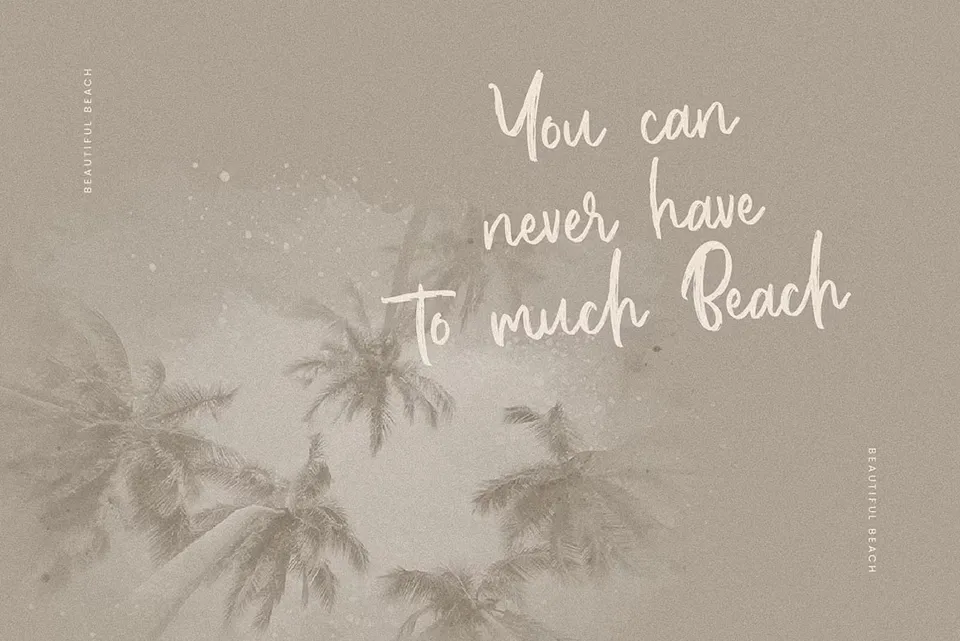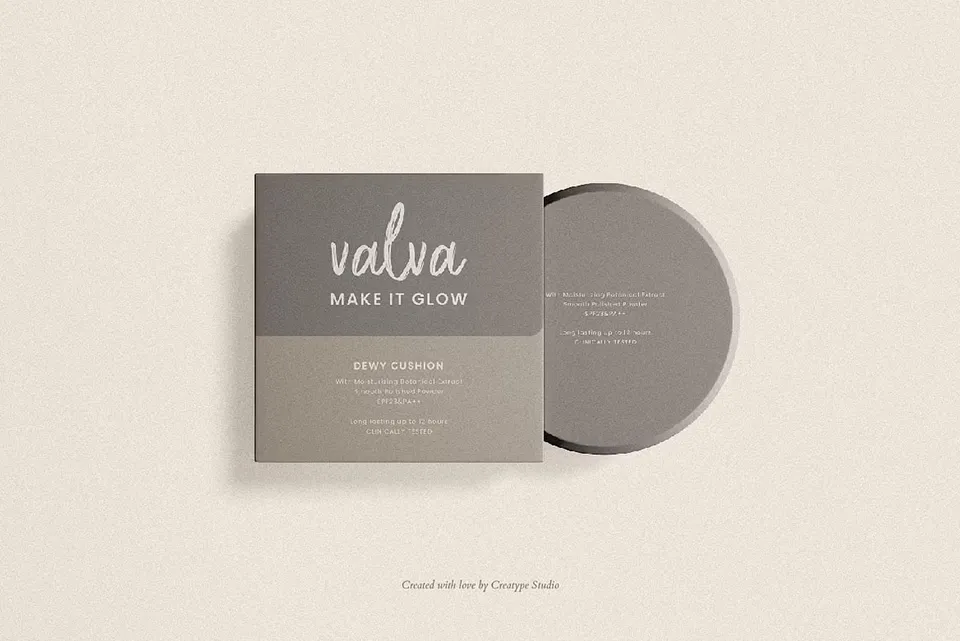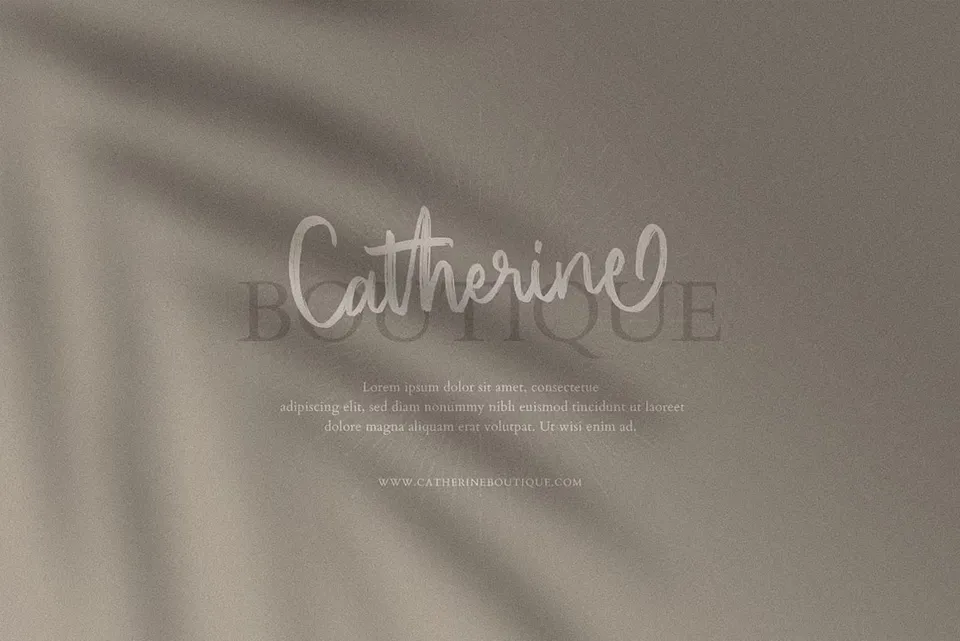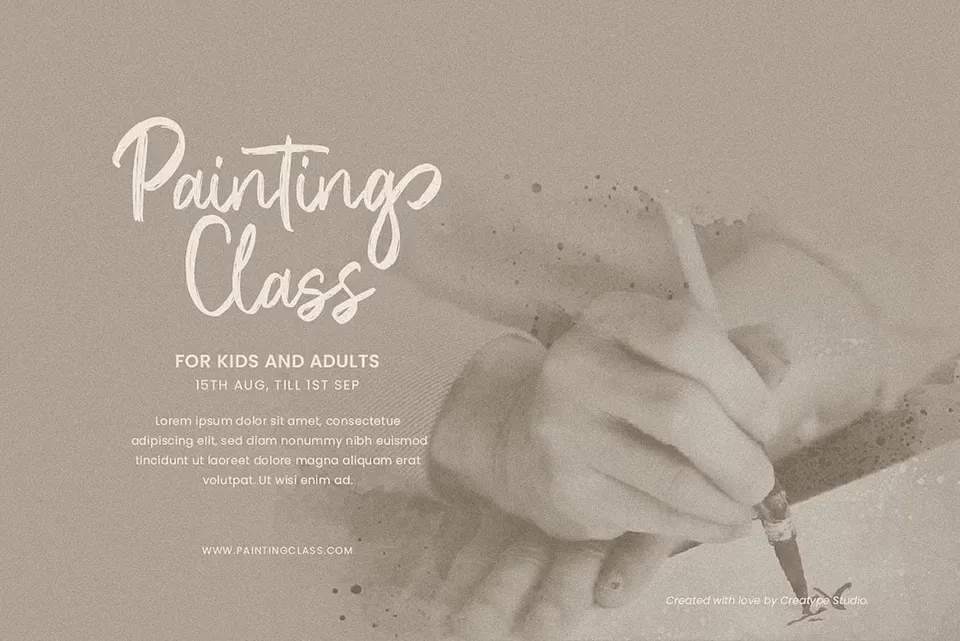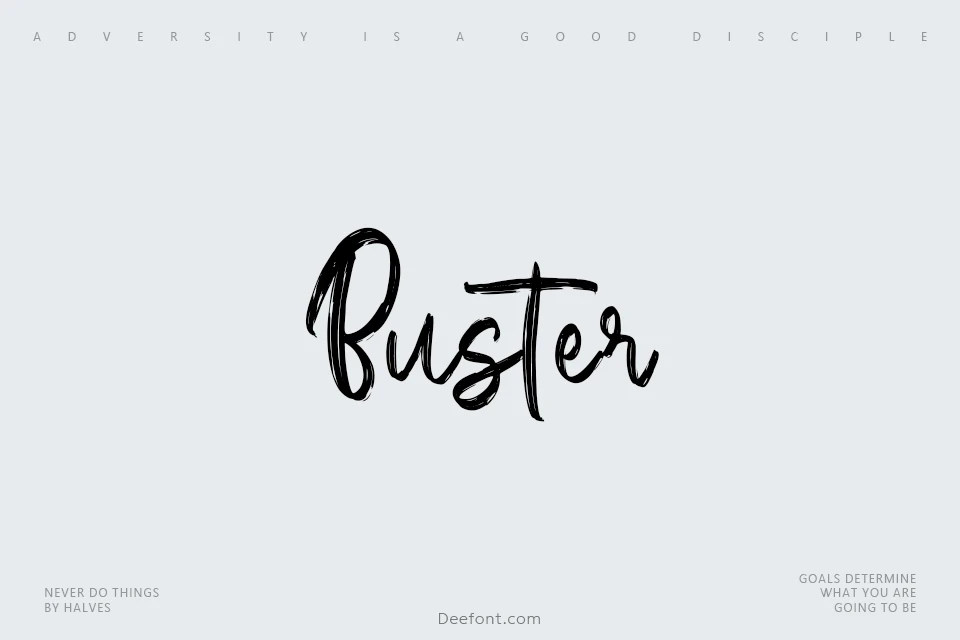
Buster Font
Buster Brush Signature Font is a captivating brush signature typeface featuring a distinctive dry brush texture with exceptional detail, creating an incredibly natural and authentic handwritten appearance. This versatile font combines elegant flowing strokes with a handcrafted aesthetic, making it perfect for projects requiring a personal touch and artistic flair. The font’s semi-bold weight brings strong presence to any design while maintaining playful brush strokes that give it a genuine handmade feel. Buster excels when paired with serif or sans serif fonts, offering designers flexibility in typography combinations. This PUA-encoded font includes tons of glyphs, ligatures, and alternate characters, providing extensive customization options for creative projects. The font supports multilingual capabilities across numerous languages including English, French, German, Spanish, Italian, and many others, making it globally accessible. Buster Brush Signature Font is ideally suited for branding projects, logo design, wedding invitations, social media posts, advertisements, product packaging, photography watermarks, and stationery design.